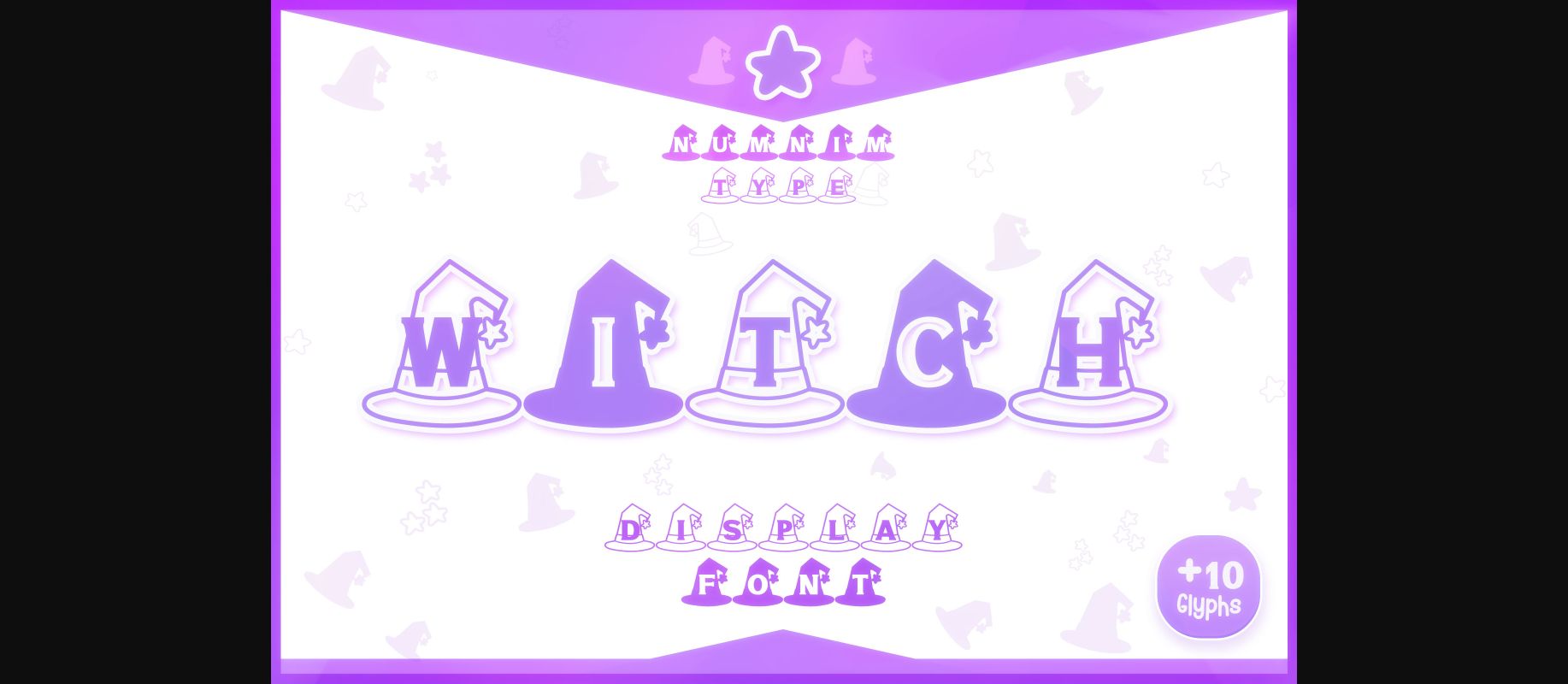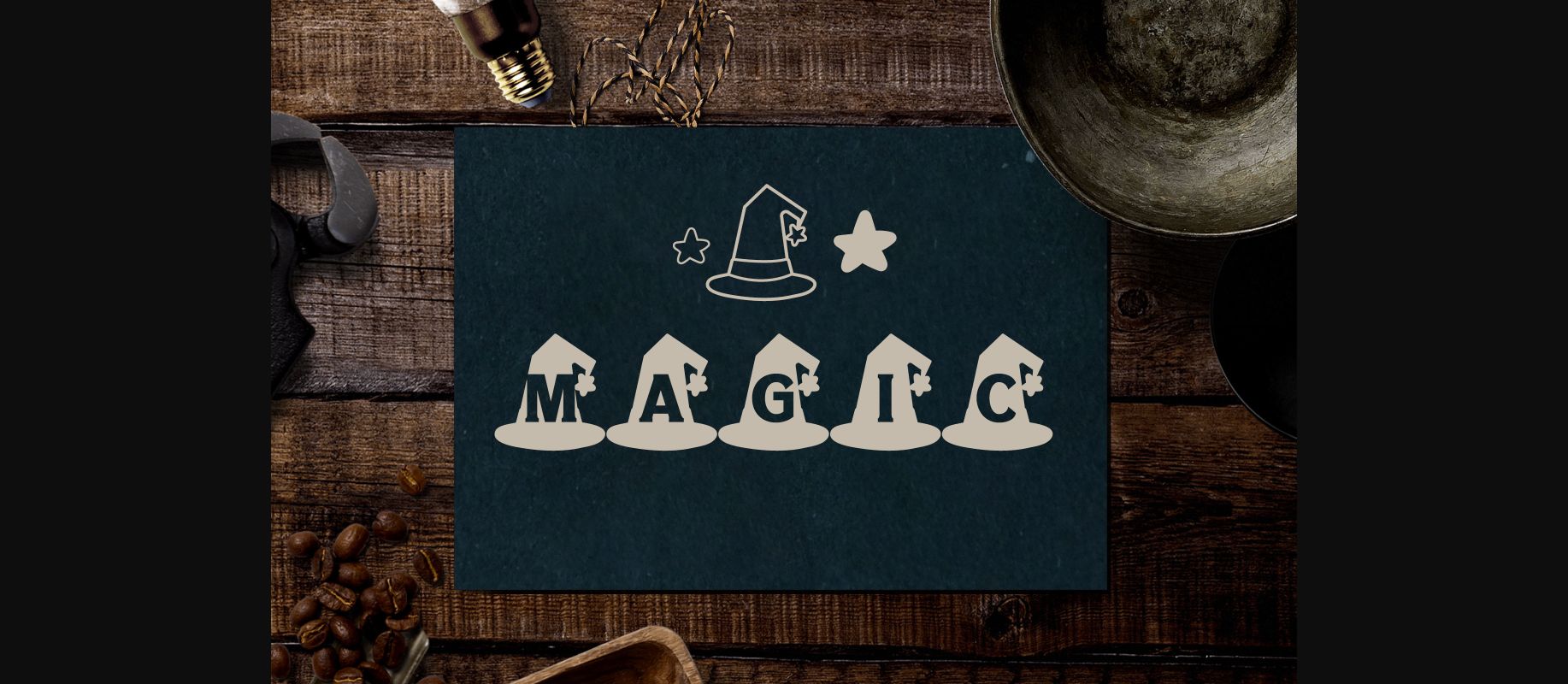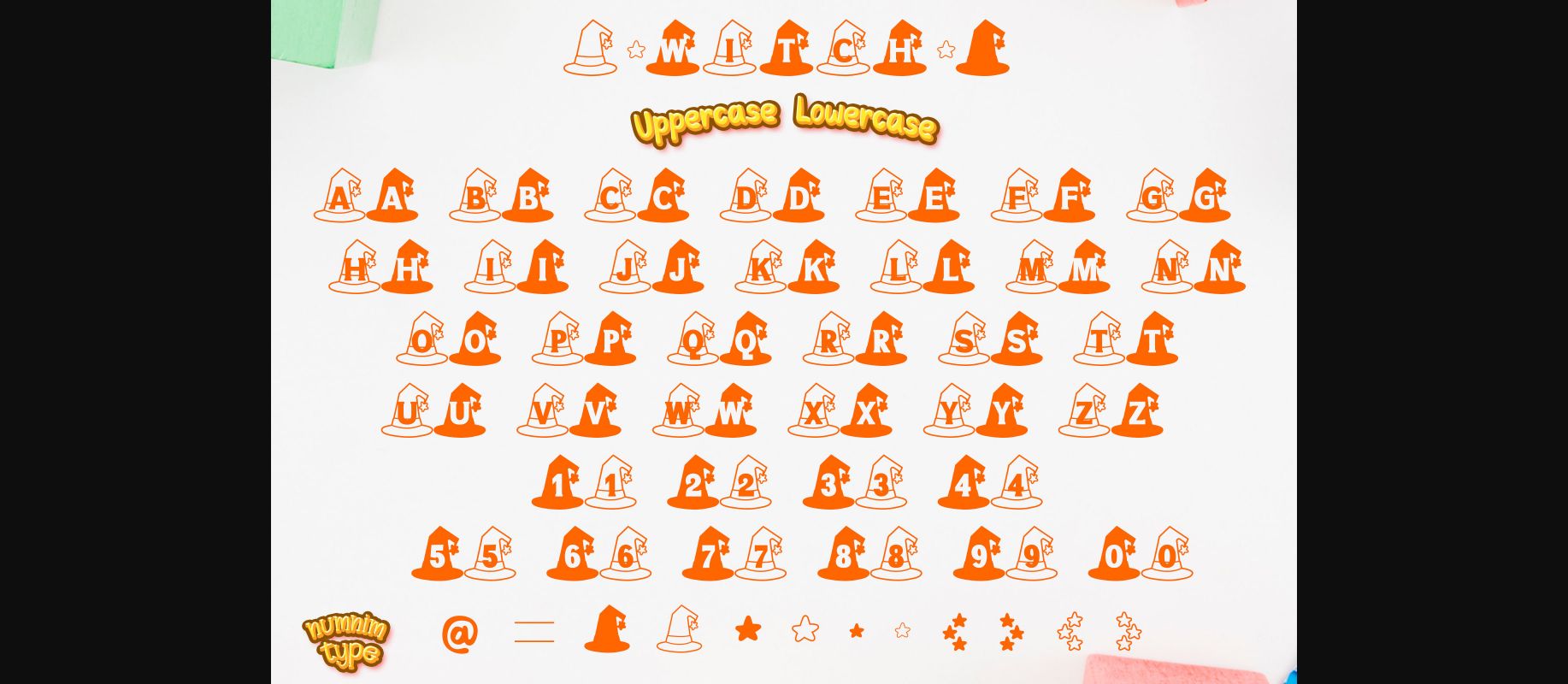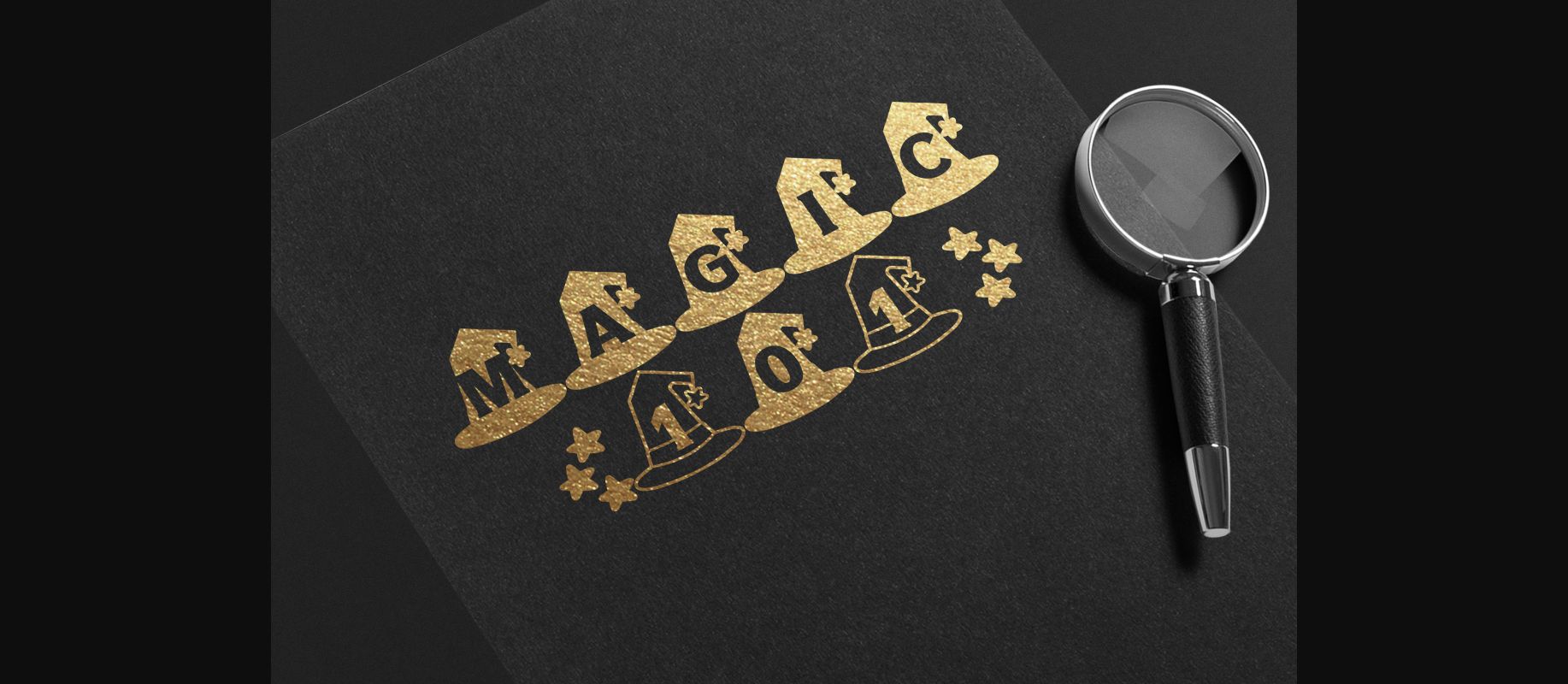
About Witch Font
Witch is a cool and scary looking decorative font. This font is PUA encoded which means you can access all glyphs and swashes with ease!